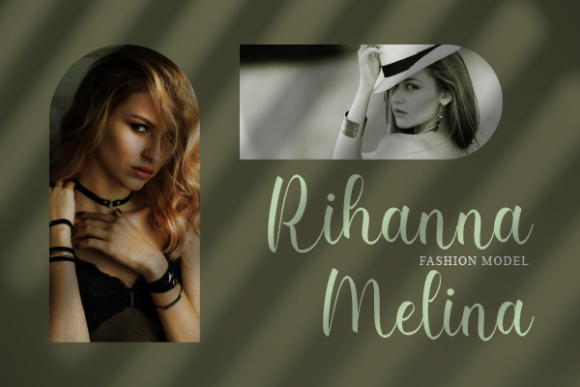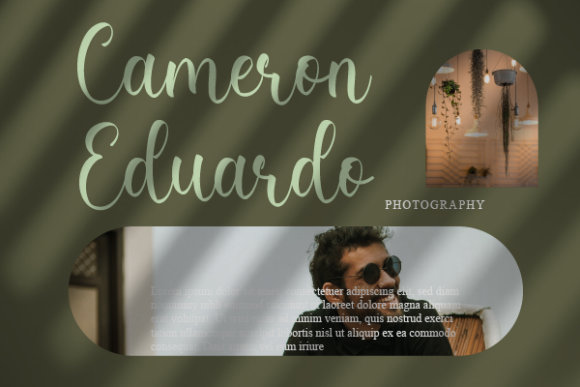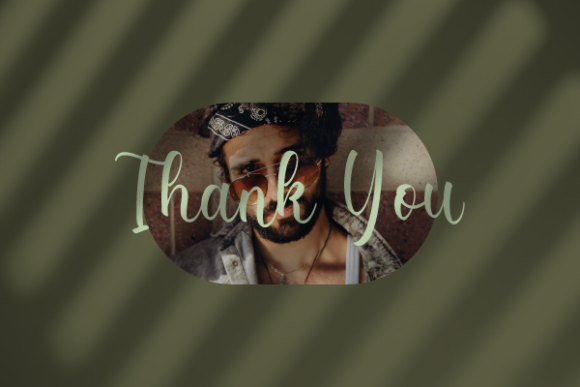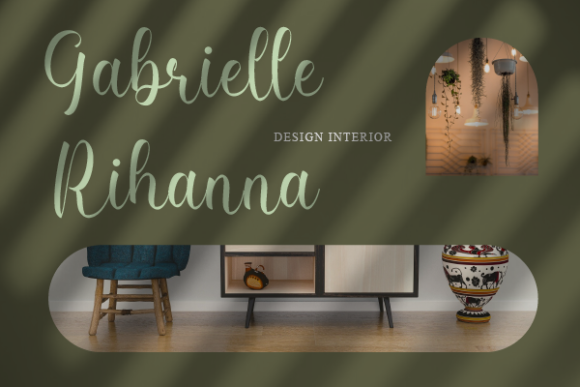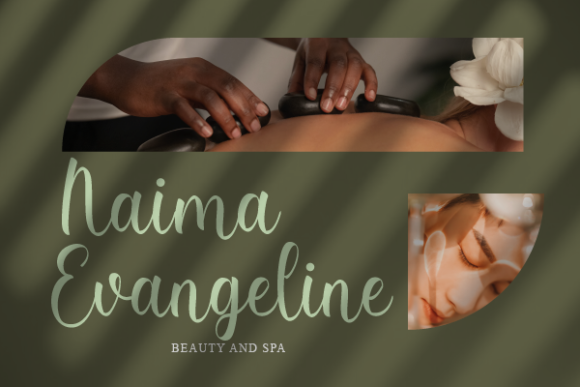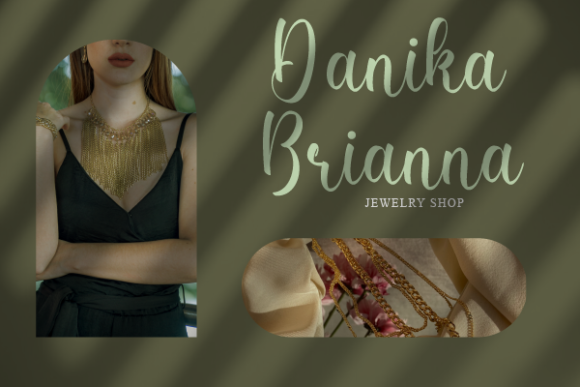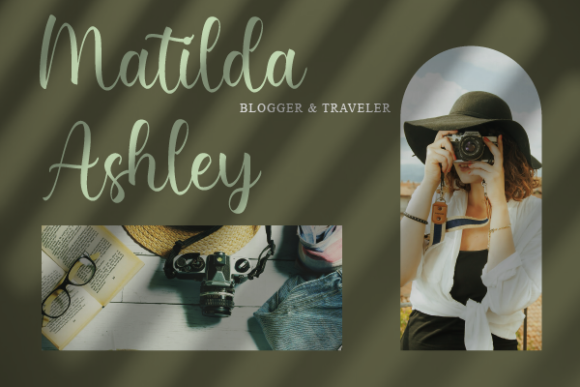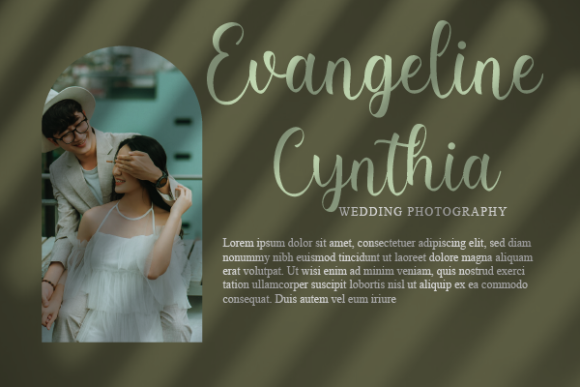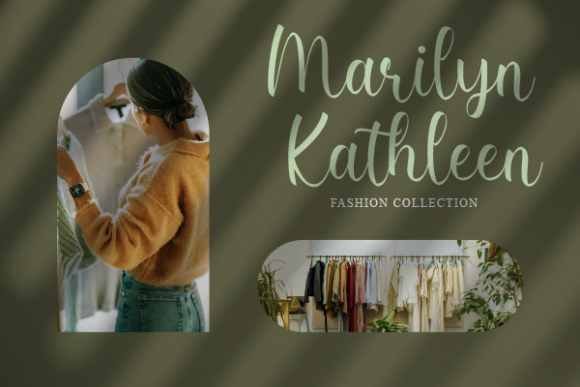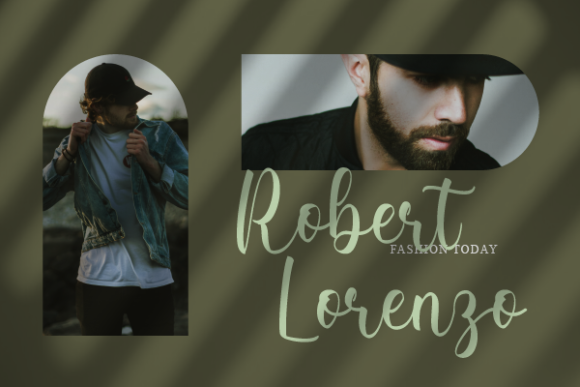
Heather Jaslene Font
About Heather Jaslene Font
Heather Jaslene is a sweet and delicate handwritten font. It has beautiful and well balanced characters and as a result, it matches a wide pool of designs.